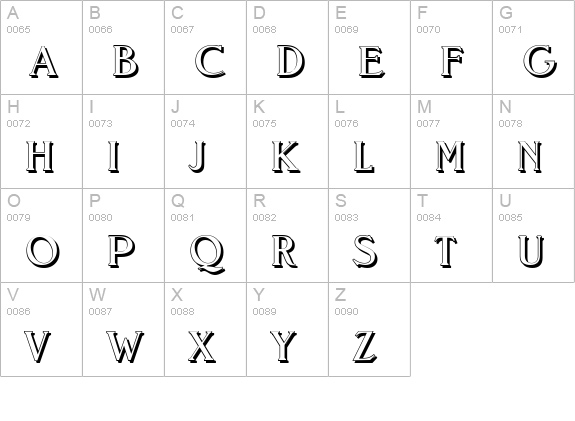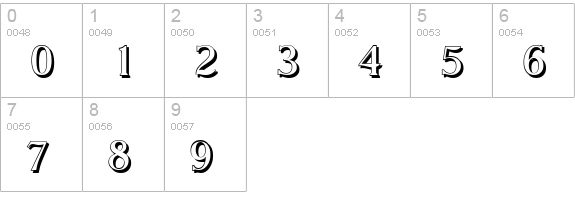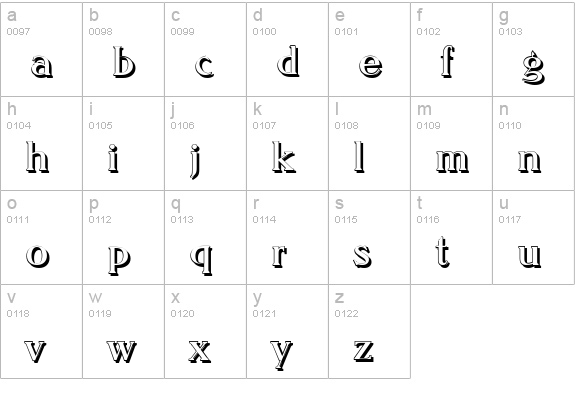
NevadaShadow-Regular is the standard, neutral variant in the NevadaShadow typeface family \xE2\x80\x94 well suited to general body text, paragraphs, and standard typographic work.
NevadaShadow-Regular is a stylish and modern font that exudes a sense of elegance and sophistication. Its sleek lines and sharp edges make it perfect for a wide range of design projects, from branding to packaging to web design. This versatile font can add a touch of class to any project, whether it's a sleek logo or a bold headline. What's even better is that NevadaShadow-Regular is completely free to download at FontsMarket.com. This means you can access this stunning font without any cost, making it the perfect choice for designers on a budget or those looking to experiment with new typefaces. Don't miss out on this opportunity to enhance your designs with NevadaShadow-Regular - download it today and elevate your projects to the next level.